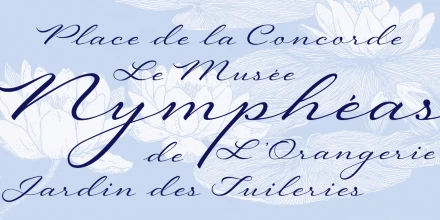
Al Fresco Regular
Al Fresco
Al Fresco is a breezy, light, expressive typeface perfect for packaging products and titling. Al Fresco is versatile; when titling is activated, the loops are removed from the lowercase letters, giving the typeface a cleaner aesthetic and more contemporary feel. When contextual alternates are activated, the ending strokes become minimized, offering a more natural look — a special touch that reveals the warmth and uniqueness of the human hand. 157 lowercase swash forms, 46 decorative ligatures, and 16 ornaments are included along with two additional sets of uppercase letters.